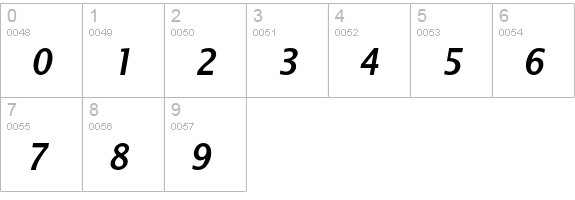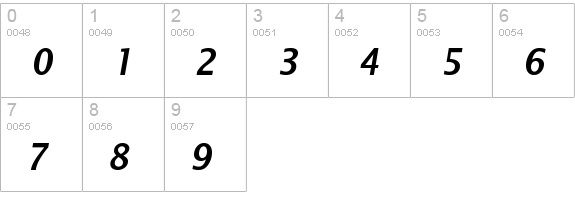
LucidaSansNarEF-DemBolIta Font Details
LucidaSansNarEF-DemBolIta is a modern and elegant font that strikes the perfect balance between boldness and sophistication. With its sleek design and dynamic italic style, this font exudes a sense of creativity and professionalism. The DemiBold weight adds a touch of authority to your text, making it ideal for headings, titles, and branding materials. What sets LucidaSansNarEF-DemBolIta apart is that it is available for free download at FontsMarket.com. This means you can easily access and use this stylish font for various design projects without any cost. Whether you're working on a website, presentation, or print material, LucidaSansNarEF-DemBolIta will elevate your content and leave a lasting impression on your audience. Overall, LucidaSansNarEF-DemBolIta is a versatile and eye-catching font that combines boldness with elegance, making it a valuable addition to any designer's toolkit. Download it for free today and enhance your projects with its unique charm and style.